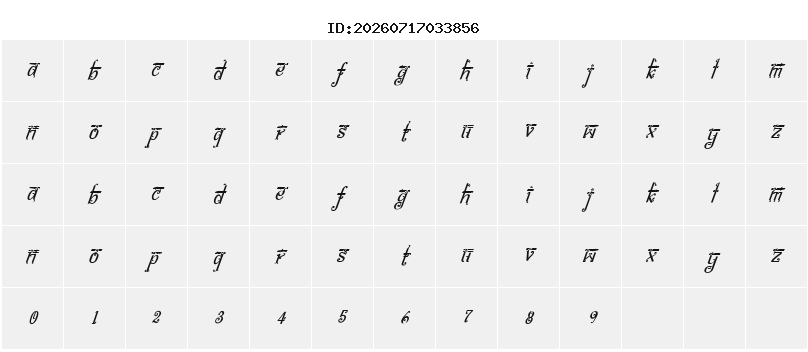
• Font Name: bitling Sravi
• Manufacturer: rajendra bitling
• Description: bitling Sravi Normal is a font by rajendra bitling, designed in 2015.
About bitling Sravi.ttf